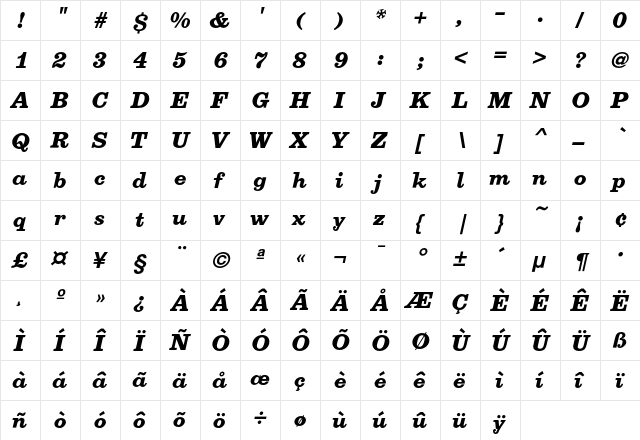
Egizio BoldItalic
Design Context for Egizio Typeface
Egizio offers clean, dependable letterforms without strong stylistic allegiance, making it a practical choice for designers who need flexibility. The slanted form adds forward momentum and visual energy. Its bold stroke weight gives it real presence on the page.
Pro Tip: Use Egizio for emphasis, pull quotes, and subheadings where its slanted energy can add rhythm to the layout.